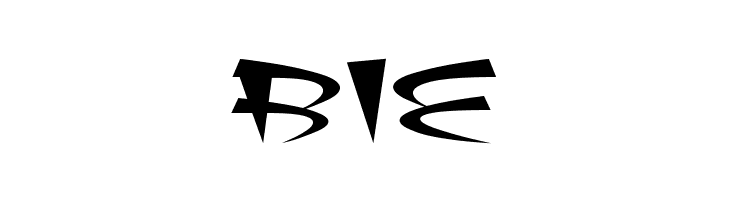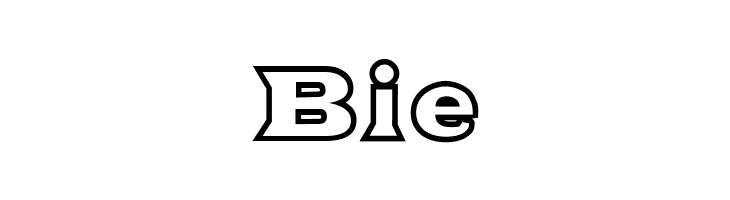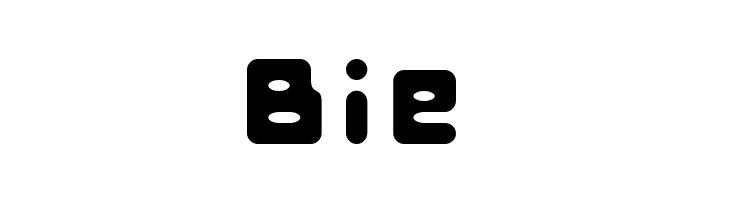
( Fonts by Bree Gorton )
A bold, outlined font with a strong, decorative style.
( Fonts by David Kerkhoff - www.hanodedphotography.com )
A playful, bold font with rounded, hand-drawn characters.
( Fonts by David Kerkhoff - www.hanodedphotography.com )
A bold, italic font with a dynamic and modern style.
A bold, geometric font with a modern, industrial style.